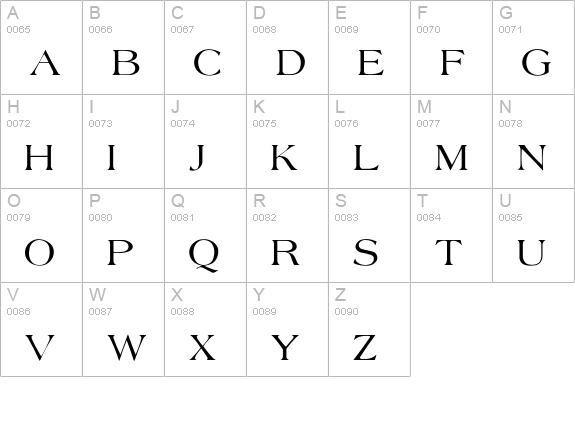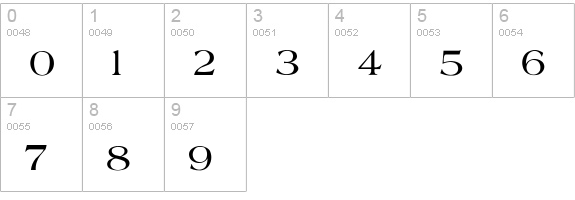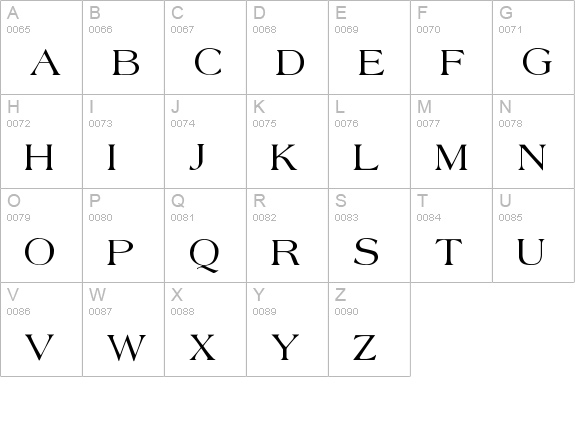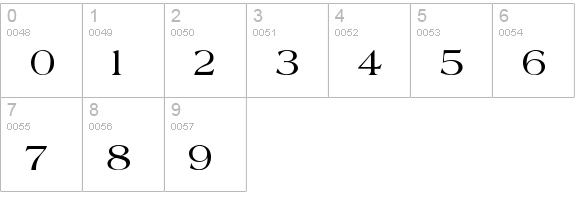
Agate-Normal is the standard, neutral variant in the Agate typeface family \xE2\x80\x94 well suited to general body text, paragraphs, and standard typographic work.
Agate-Normal is a modern and elegant font that exudes sophistication and style. With its clean lines and versatile design, Agate-Normal is perfect for a wide range of projects, from branding to editorial design. This font offers a classic yet contemporary look that will elevate any design it is used in. The best part? Agate-Normal is completely free to download at FontsMarket.com. You can easily access this sleek and stylish font to enhance your creative projects without any cost. Its sleek and professional appearance makes it a standout choice for designers who want to make a statement with their typography. Whether you're working on a website, a poster, a logo, or any other design project, Agate-Normal is sure to impress with its timeless appeal. Download this stunning font today and take your designs to the next level with its effortlessly chic aesthetic.